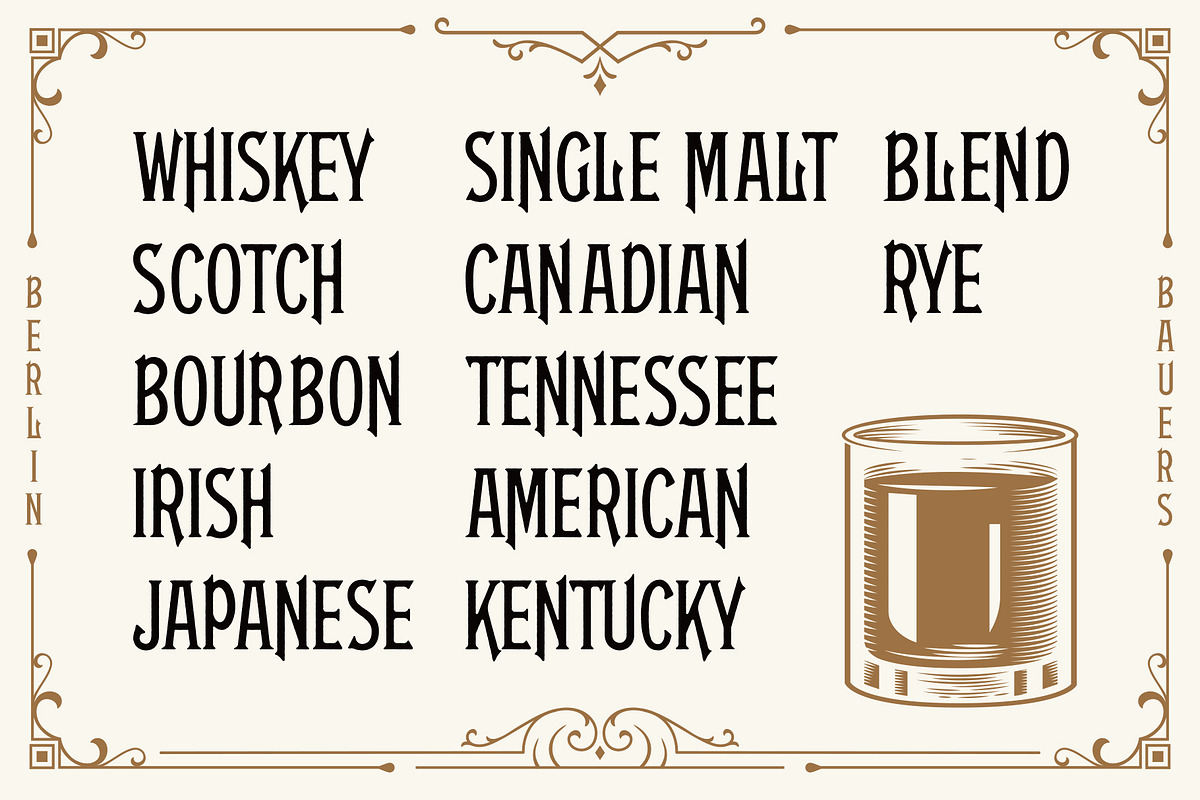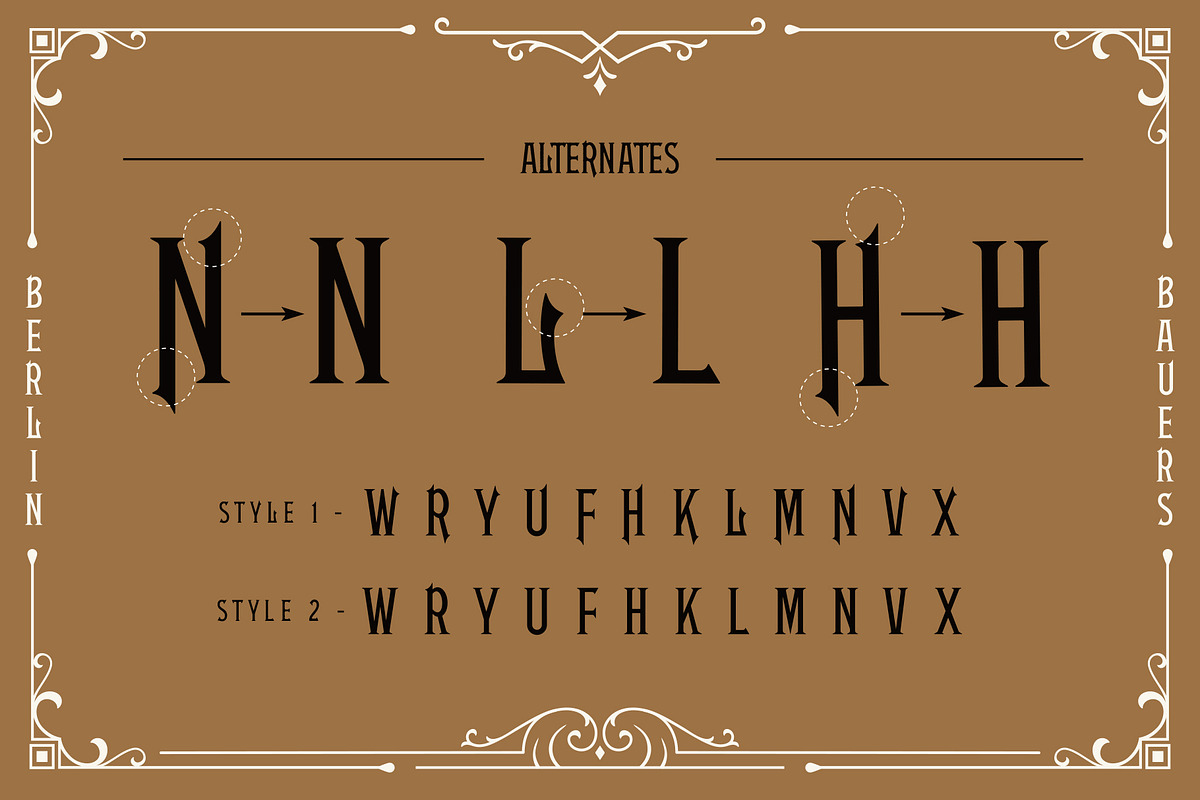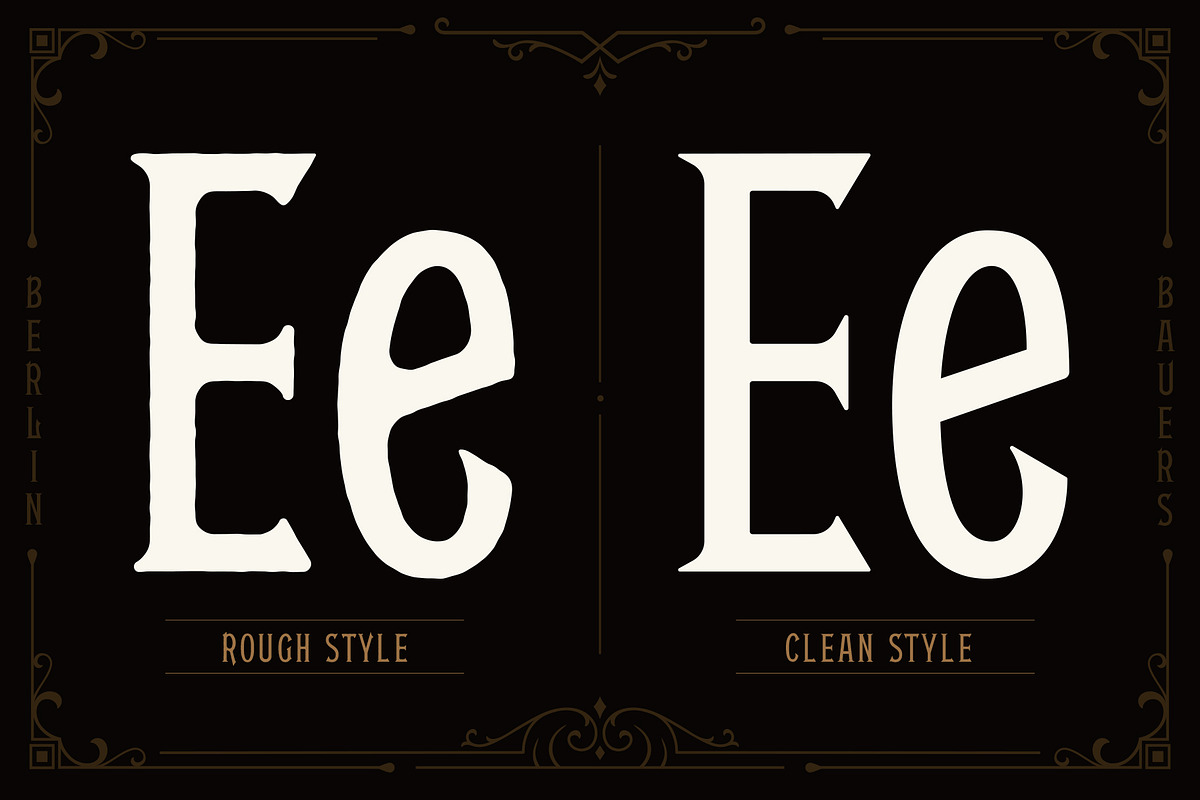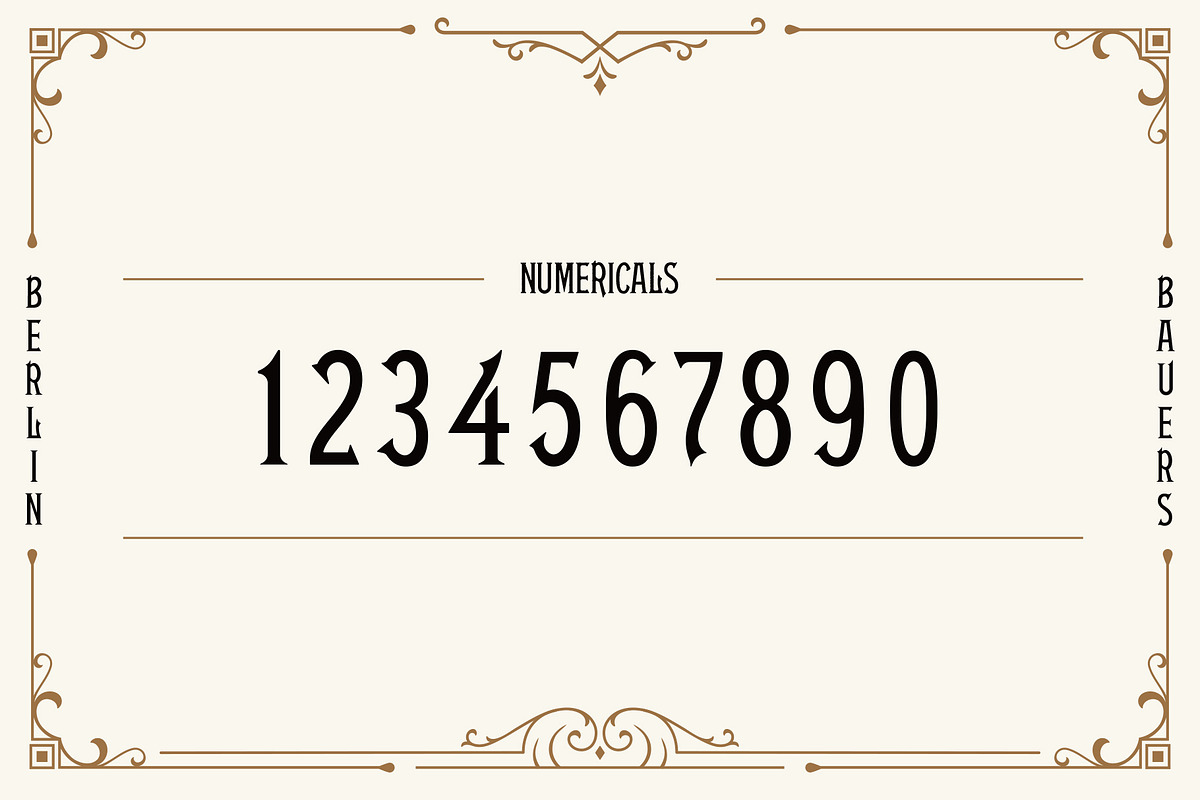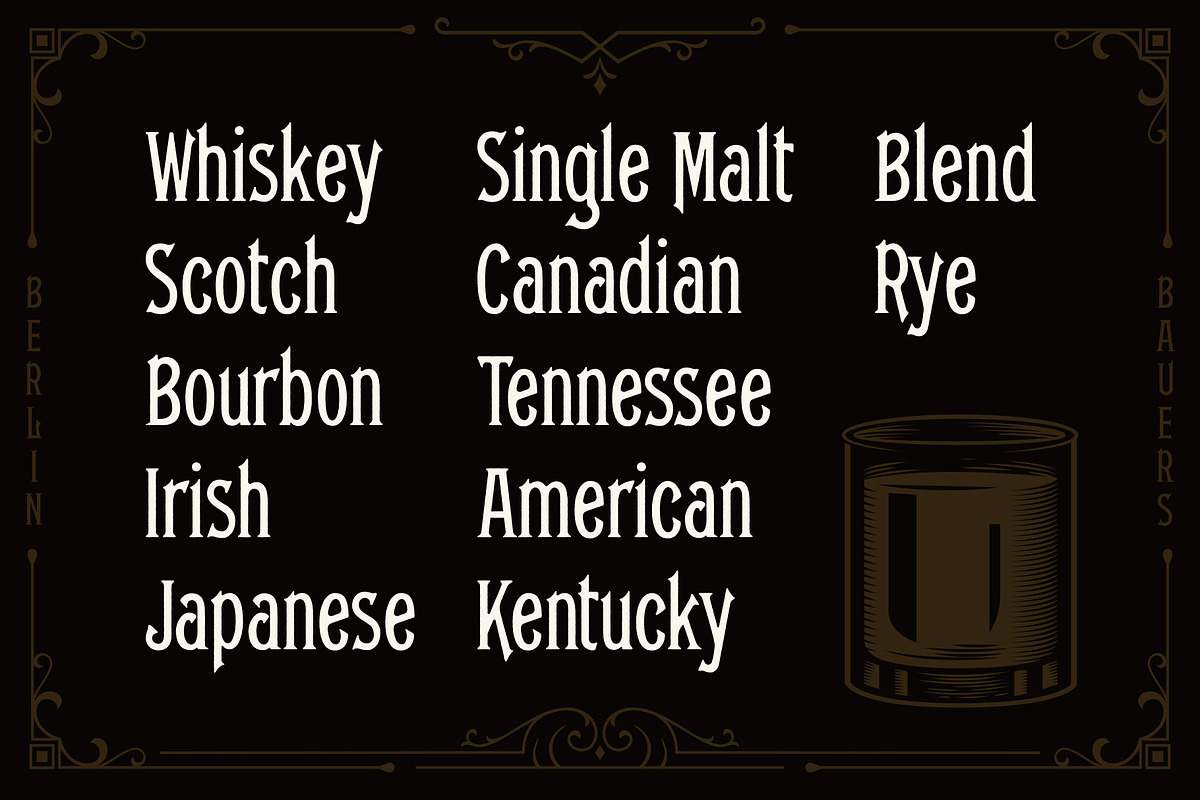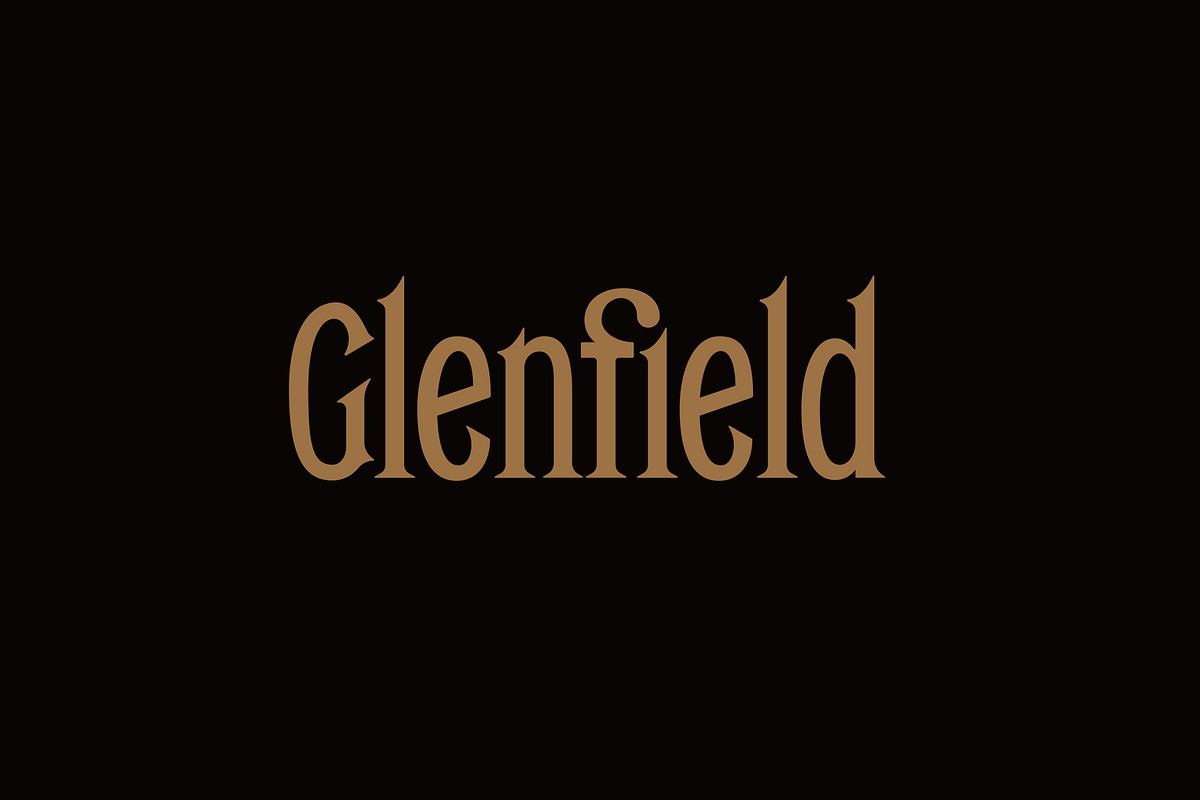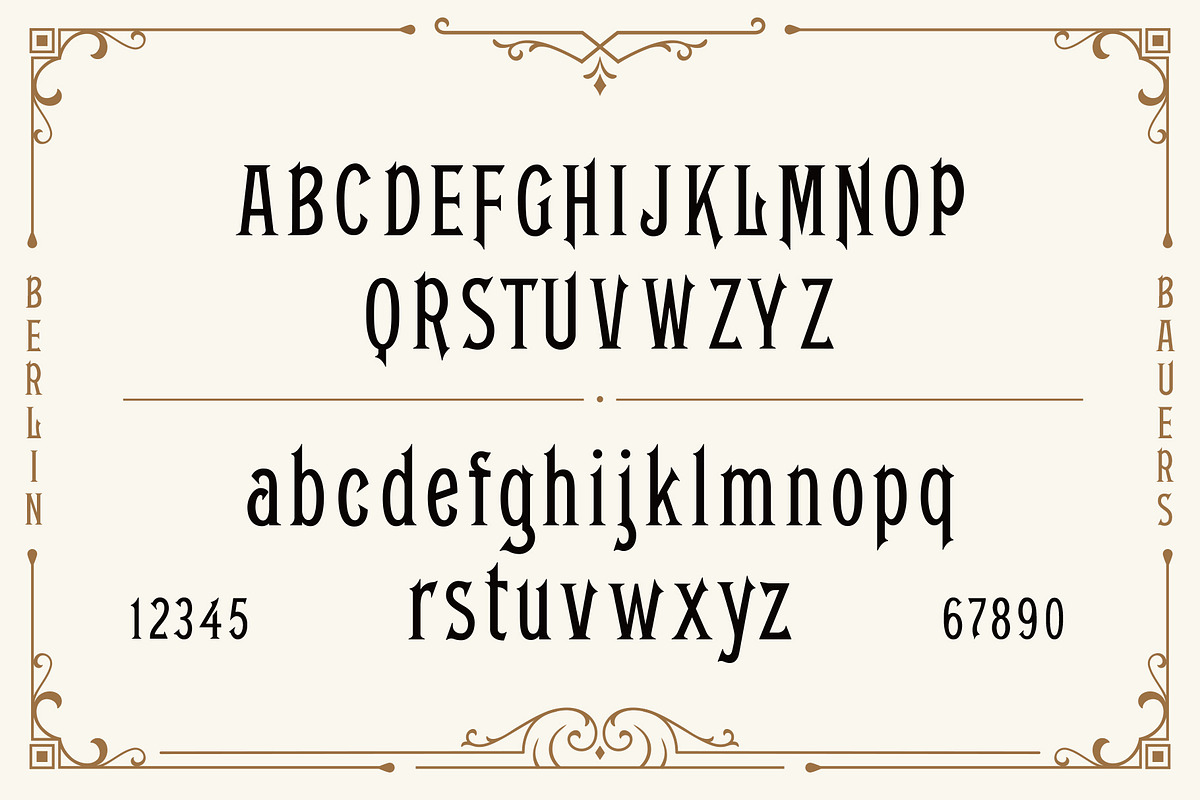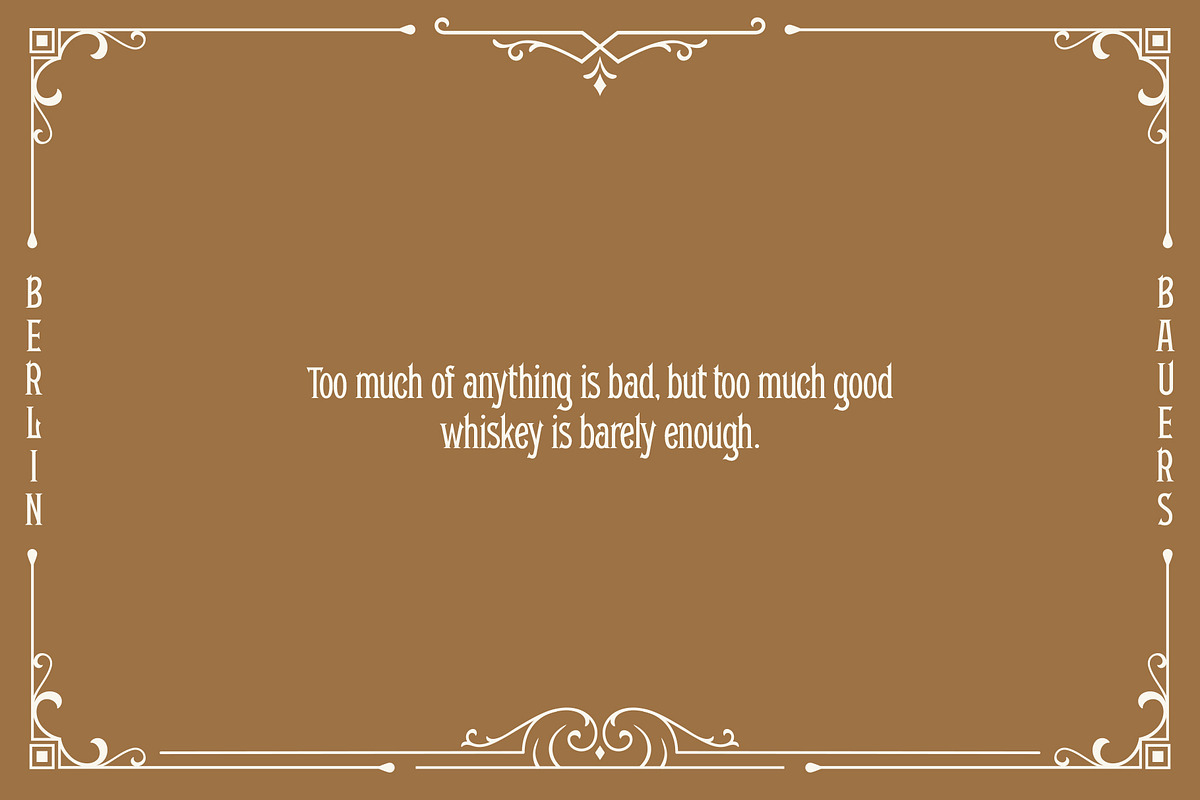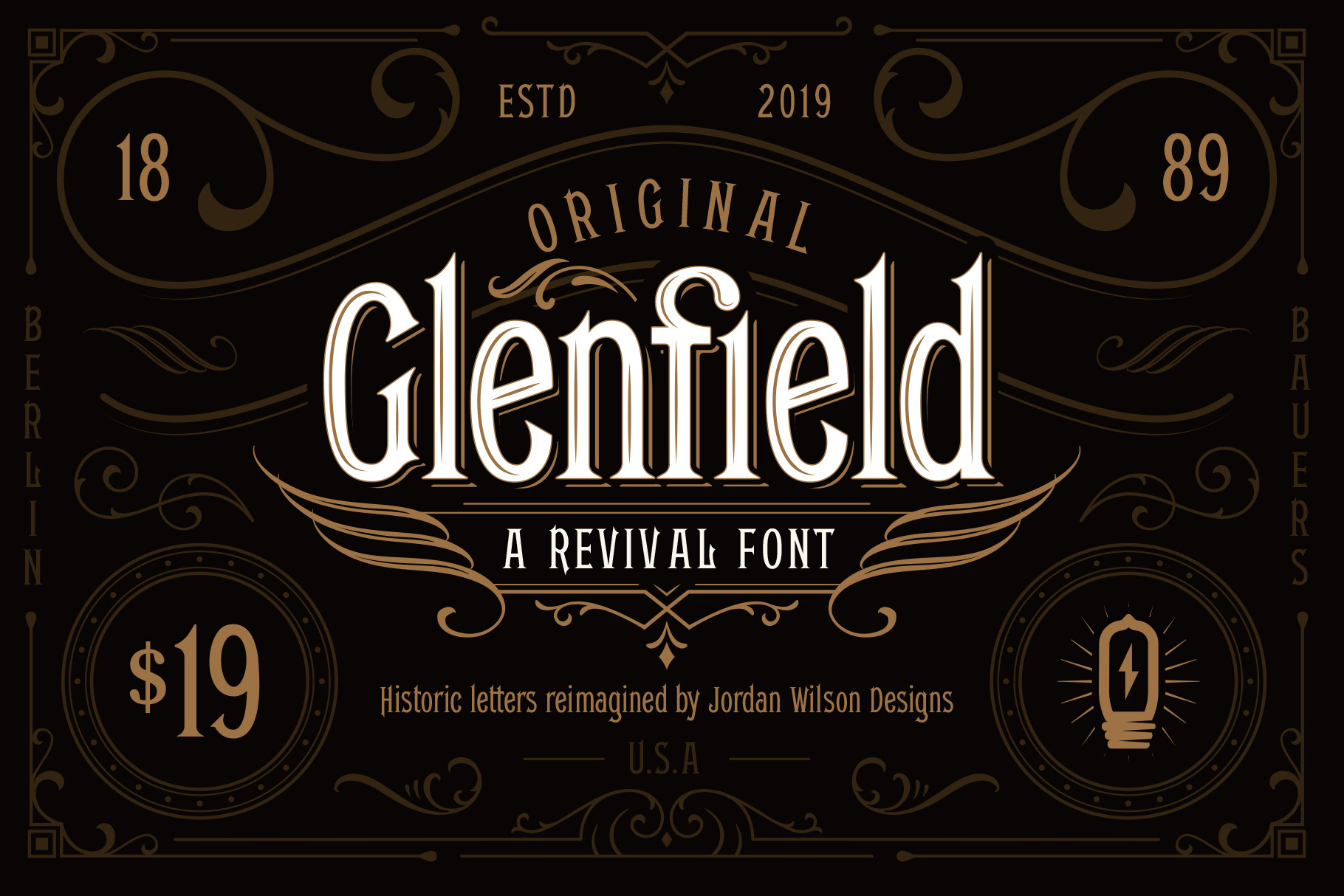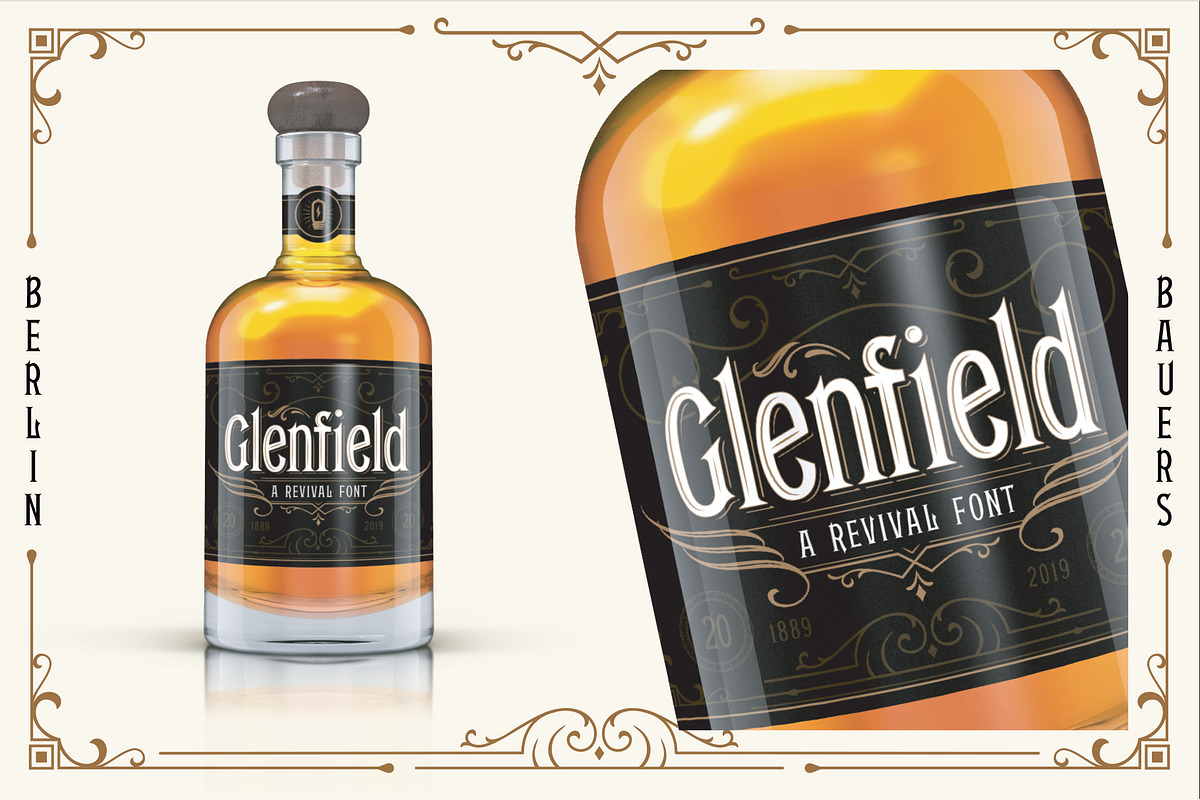
Glenfield - A Vintage Typeface
Glenfield is a sturdy, victorian-style font with a memorable foot and unique serif treatment. It’s available separately in both Regular and Rough styles, including a number of alternates and ligatures.
This entire typeface has been born from the bones of a lost German 18th century construction; rounded out, reimagined, and restructured for a modern use.